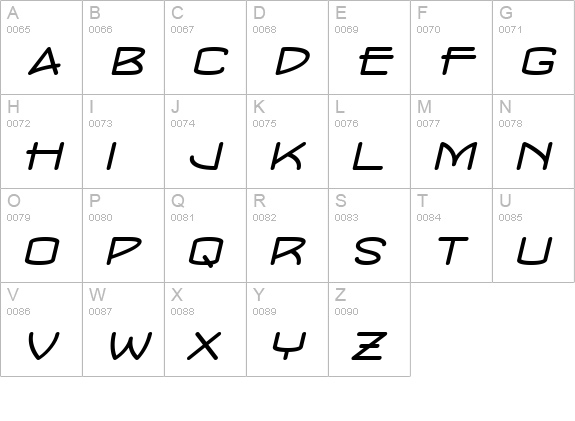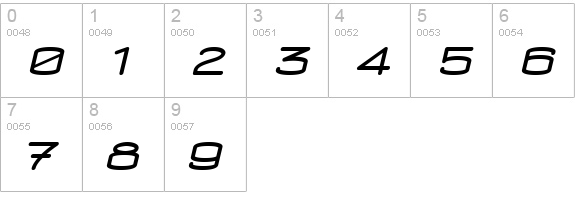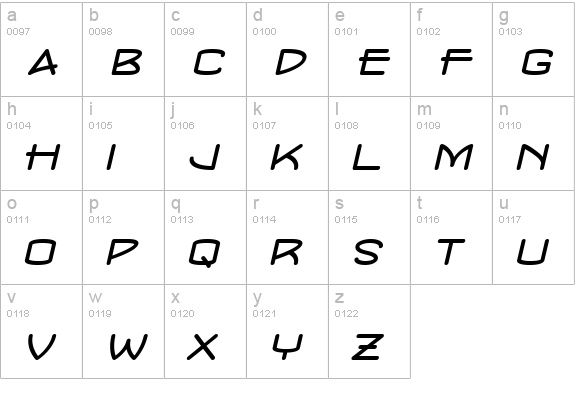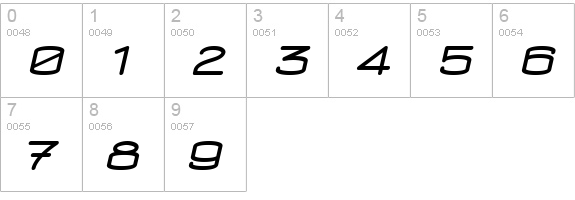
ConcursoModerne BTN Wide Oblique Font Details
ConcursoModerne BTN Wide Oblique is a distinctive, extended-width, italic variant in the ConcursoModerne typeface family \xE2\x80\x94 well suited to design and typography projects.
ConcursoModerne BTN Wide Oblique font is a sleek and modern typeface that exudes sophistication and elegance. Its unique slanted design adds a touch of flair to any project, making it perfect for adding a contemporary edge to your designs. The wide letterforms give this font a bold and eye-catching appearance, making it ideal for headlines, signage, and other display purposes. This versatile font is free to download at FontsMarket.com, allowing you to easily incorporate it into your projects without any cost. Whether you're designing a website, creating marketing materials, or working on a branding project, ConcursoModerne BTN Wide Oblique font is sure to make a statement and elevate your design to the next level. With its smooth curves and stylish aesthetic, this font is a must-have for any designer looking to add a touch of modern sophistication to their work.